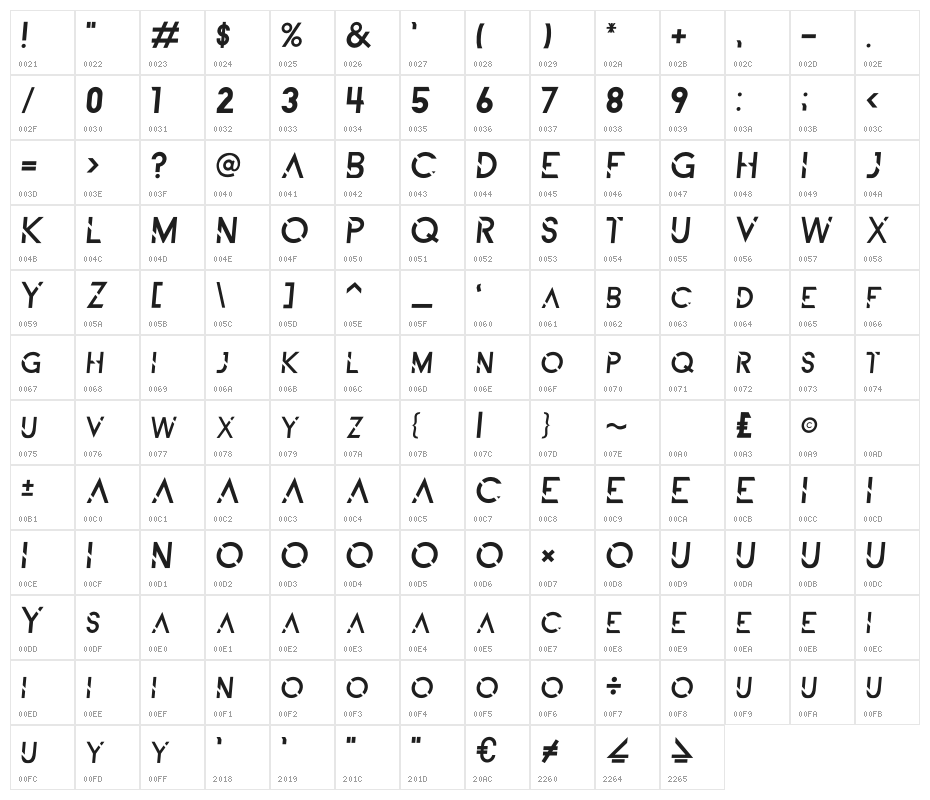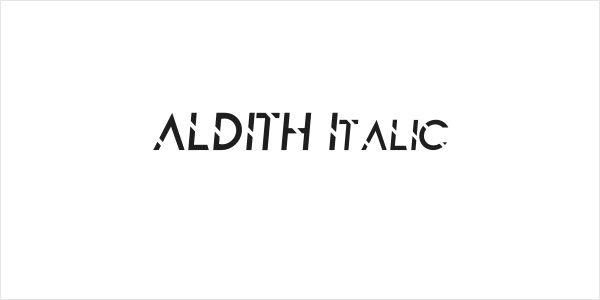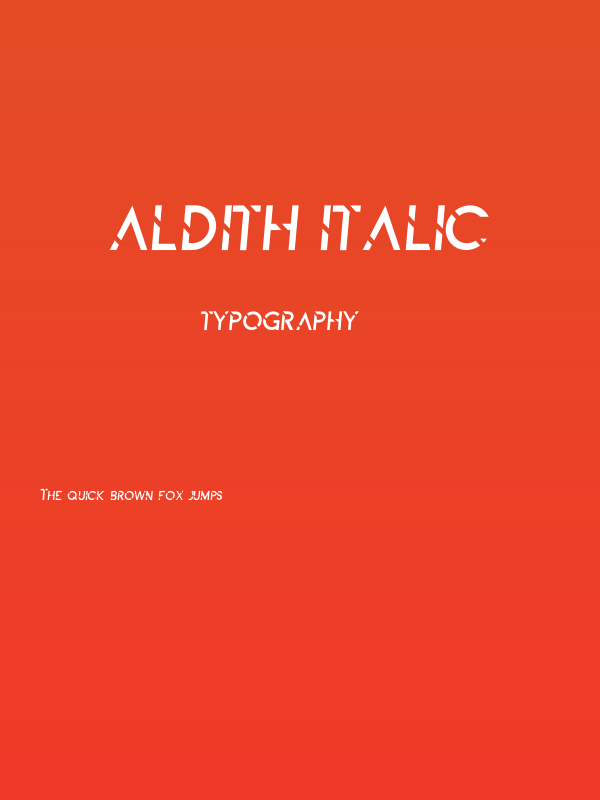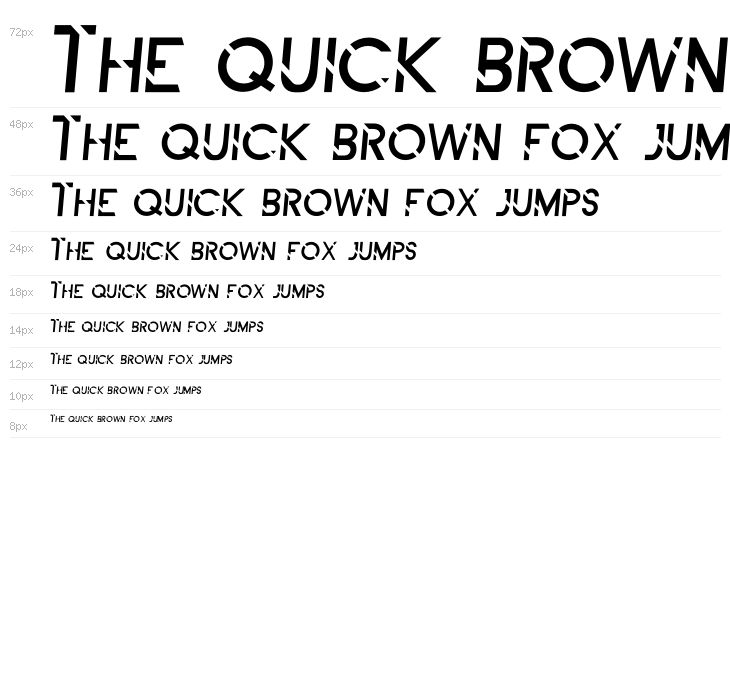
ALDITH Italic Font
ALDITH Italic Description
This font features a bold and modern design with a distinct geometric style. The characters are constructed with sharp angles and clean lines, creating a futuristic and dynamic appearance. The uppercase and lowercase letters maintain a consistent height, while the numbers and special characters complement the overall aesthetic. The italic slant adds a sense of motion and energy, making it suitable for eye-catching designs. The font's unique cut-out elements within the characters enhance its contemporary feel, making it ideal for projects that require a strong visual impact.
| Proposed Projects | Ideal for branding, posters, headlines, and digital media that require a modern and striking look. |